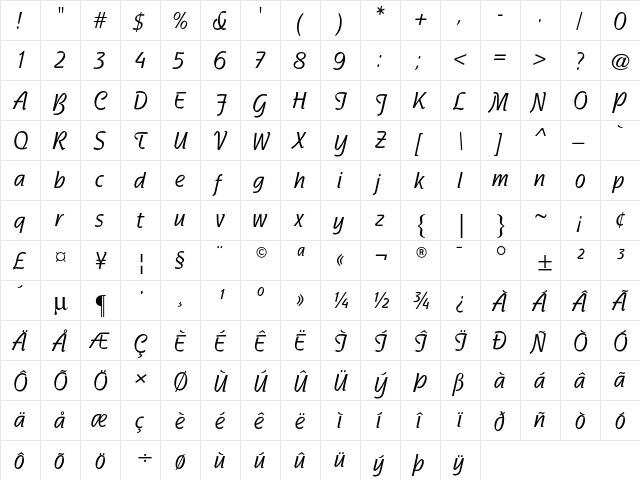
Nadianne AT Medium Condensed Regular
Design Context for Nadianne AT Medium Condensed Typeface
Nadianne AT Medium Condensed takes a measured approach to typography — its balanced proportions and neutral character make it a reliable workhorse for both digital and print work. Its narrow stance lets it pack a punch even in space-constrained designs.